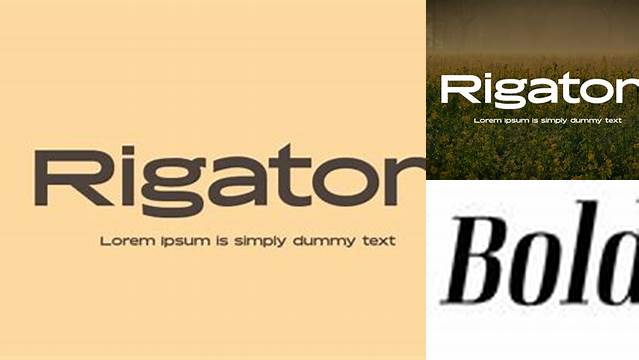
Rigatoni Bold Font: A Deep Dive into its Charm
So, what's the deal with the Rigatoni Bold font? Well, first off, the name is fun, right? It immediately grabs your attention. But beyond the quirky name lies a seriously useful and stylish font. It's got that perfect balance of being both modern and approachable. The bold weight makes it ideal for headlines, titles, and anywhere you want to make a statement. Imagine it on a poster, a website banner, or even a cool logo – the possibilities are endless! Think about your current design projects. Do they need a little more oomph? Does your brand need a typeface that screams confidence and creativity? If the answer is yes, then the Rigatoni Bold font is definitely worth a look. It's a workhorse font. It looks great in both digital and print formats. That means it's perfect for everything from social media graphics to printed brochures. Its versatility makes it a go-to choice for designers of all levels. The clean lines and strong presence of this font ensure that your message is delivered clearly and with impact. It's like a visual exclamation point, capturing the audience's attention and leaving a lasting impression. Finding a font that embodies both style and readability is like striking gold, but with the Rigatoni Bold font, you've hit the jackpot. It can be easily integrated into various design projects, whether you're crafting a website, creating marketing materials, or producing engaging social media content. The bold design ensures it stands out, making a statement that resonates with the audience. The design enhances your project, offering both versatility and visual appeal, guaranteeing that your message will not only be conveyed effectively but will also captivate and maintain the viewer's interest.
Understanding the Features of Rigatoni Bold Font
Let's get into the nitty-gritty. What makes the Rigatoni Bold font so special? Well, its defining characteristic is, obviously, its boldness. The thick strokes ensure high visibility. This is crucial for readability, especially at a distance or on smaller screens. The font's design is also quite modern, with clean lines and a contemporary feel. This allows it to work well with a variety of other design elements. Think about pairing it with some more subtle fonts for body text to create a visually balanced design. The features of Rigatoni Bold extend beyond its aesthetic appeal. It often includes a comprehensive character set, supporting a wide range of languages and special characters. This broad support ensures that designers can use the font for global projects. The comprehensive set will allow for the inclusion of accents, symbols, and other typographic elements to effectively convey your message across any audience. In today's interconnected world, this versatility is a huge plus. Furthermore, the Rigatoni Bold font often comes with different variations. This flexibility enhances the designer's ability to use the font in different contexts. Consider using the font in headings, subheadings, and even short blocks of text to create visual hierarchy. You can easily adjust the font's size, spacing, and color to achieve the desired effect. Consider the importance of proper kerning and tracking to ensure optimal readability. The thoughtful implementation of these features elevates the design and enhances the viewer's experience. The font's design ensures that every letter and symbol is clear, legible, and visually appealing. This attention to detail enhances the overall quality of your design projects. The design is not just about aesthetics; it's about creating a user-friendly and memorable experience that leaves a lasting impression.